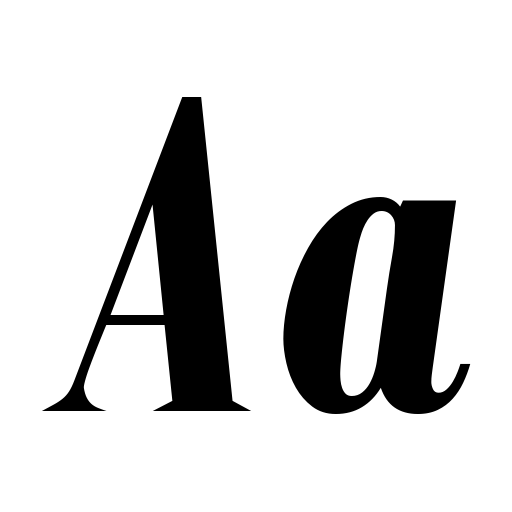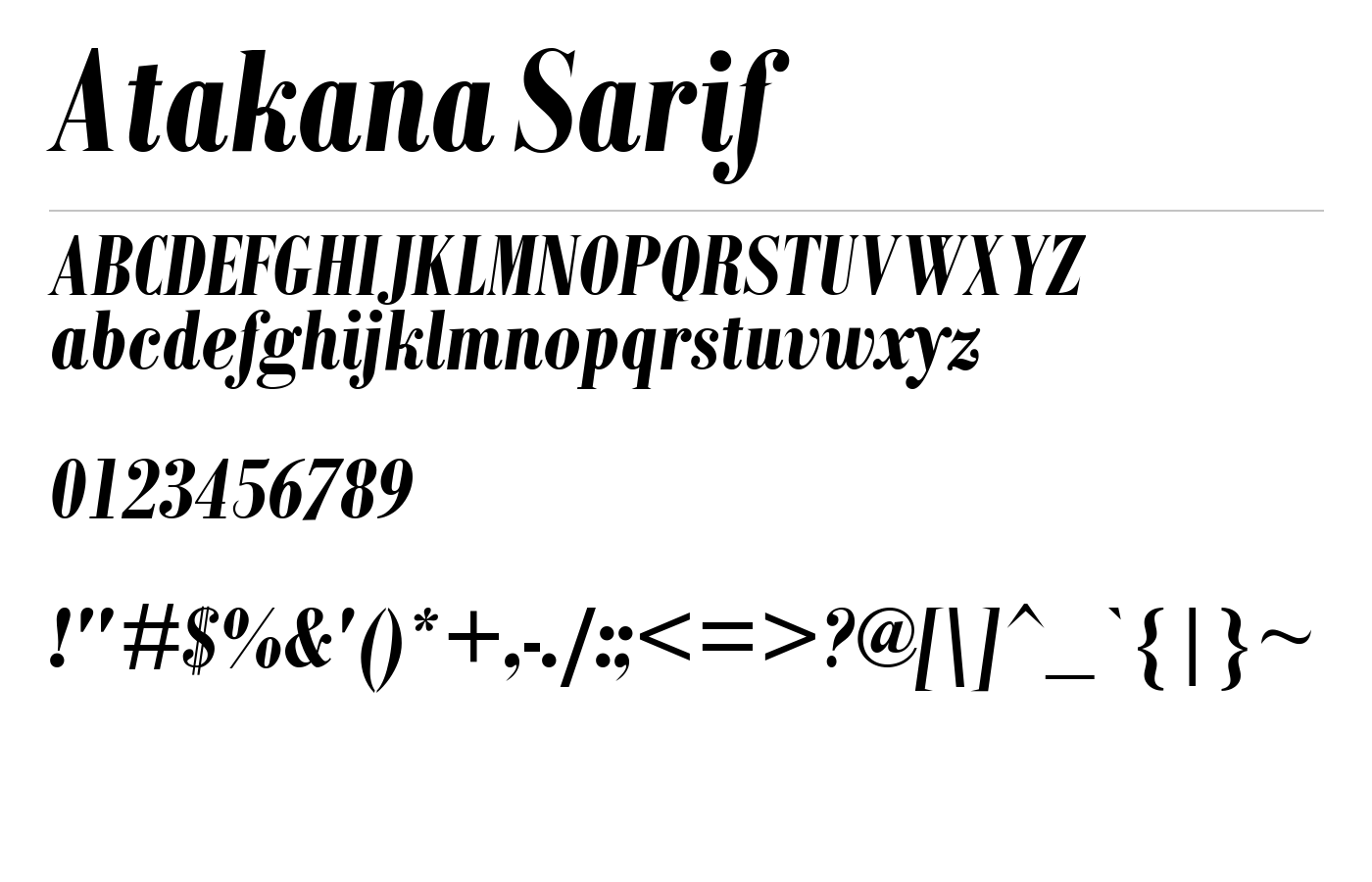
Atakana Sarif is an elegant serif typeface with a modern Didone style, characterized by its high contrast between thick and thin strokes and sharp, unbracketed serifs. Its condensed letterforms and italic angle give it a sophisticated, stylish feel, making it ideal for fashion branding, luxury editorial headlines, and striking logo designs. This font balances classic refinement with contemporary flair, perfect for creating a bold yet graceful visual impact.
Atakana Sarif Font
About Atakana Sarif Font